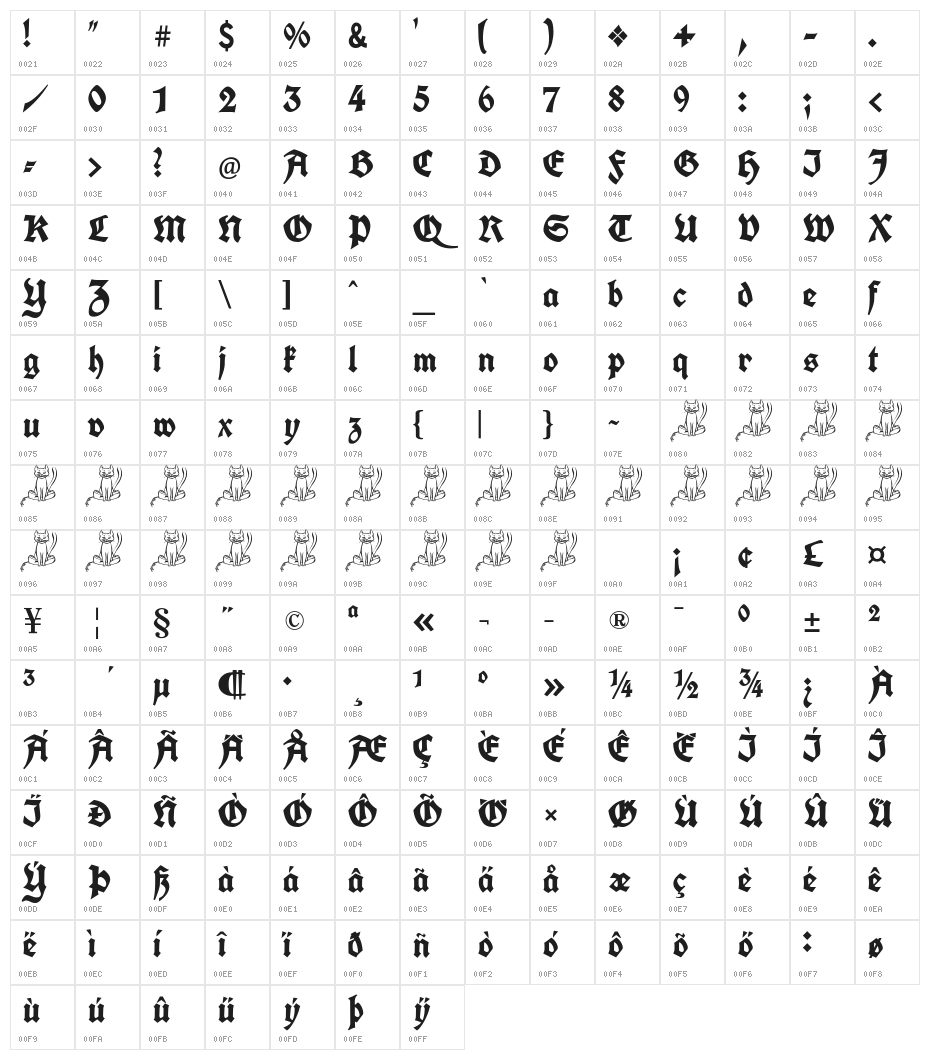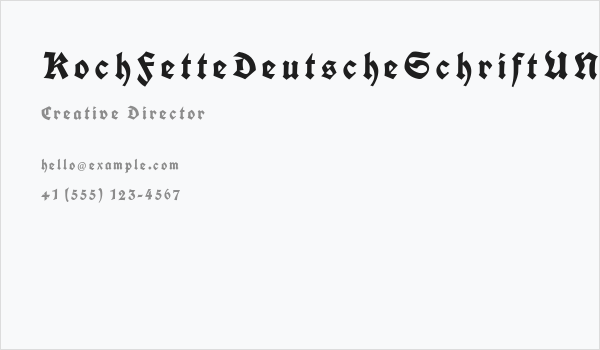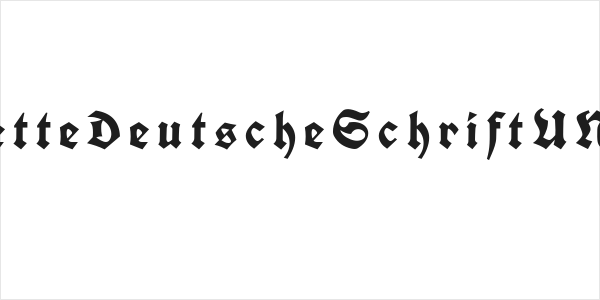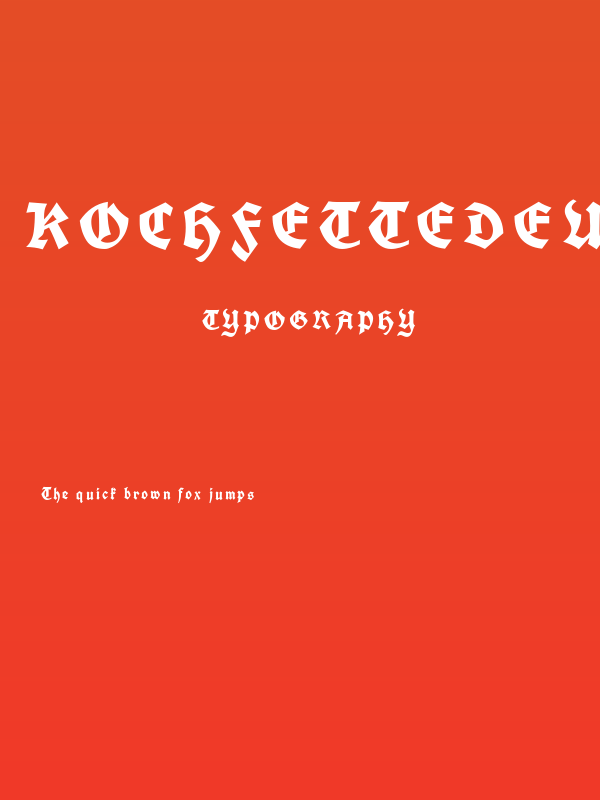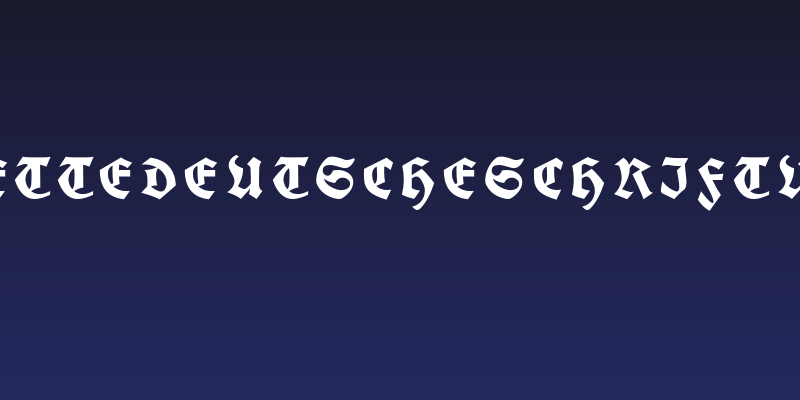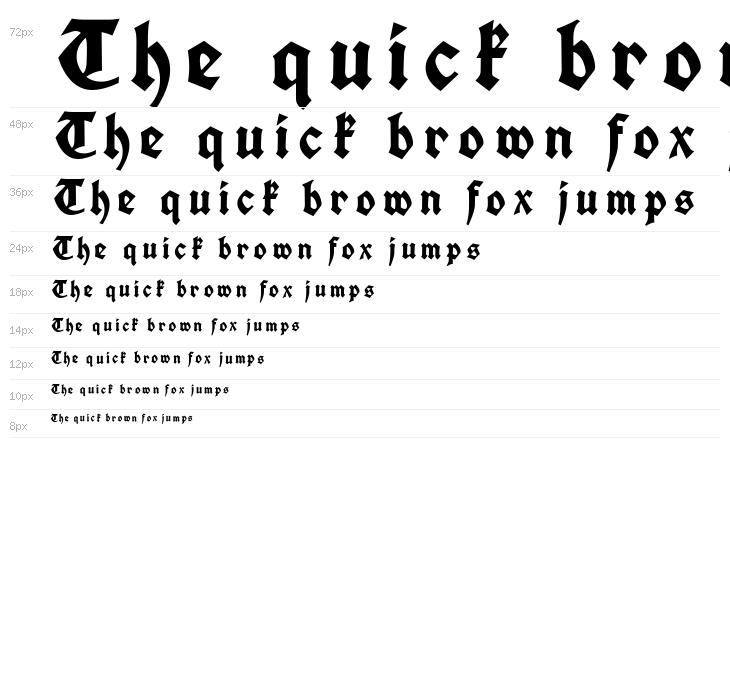
KochFetteDeutscheSchriftUNZ1A-I Font
KochFetteDeutscheSchriftUNZ1A-I Description
This font features a bold, traditional blackletter style, characterized by its sharp, angular lines and dramatic strokes. The uppercase letters exhibit a strong presence with intricate detailing, while the lowercase letters maintain a consistent flow with a slightly more subdued design. The numerals are bold and distinct, complementing the overall aesthetic. Special characters are designed with the same attention to detail, ensuring a cohesive look across all glyphs. The font's historical and gothic appeal makes it suitable for projects that require a touch of classic elegance and formality.
| Use Case | Logos, Headlines, Formal Invitations |
| Proposed Projects | Ideal for historical documents, formal invitations, branding for luxury products, or any project seeking a classic and elegant touch. |